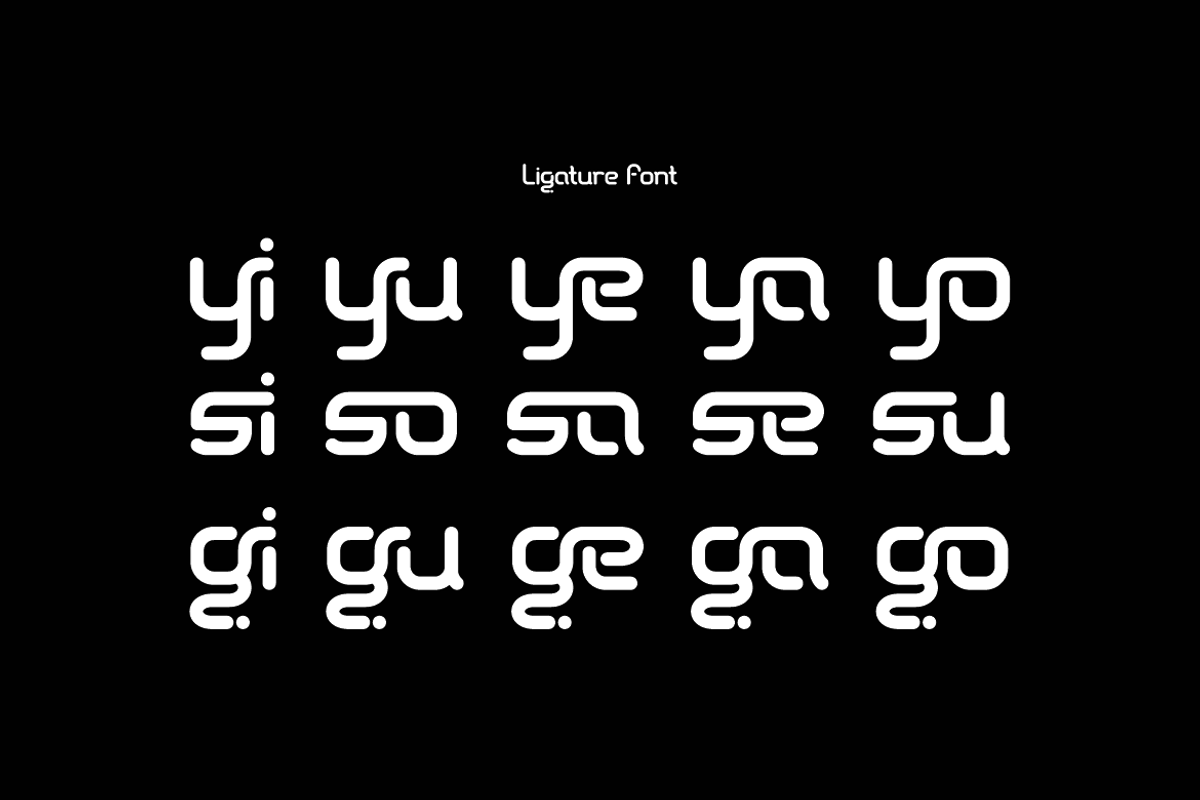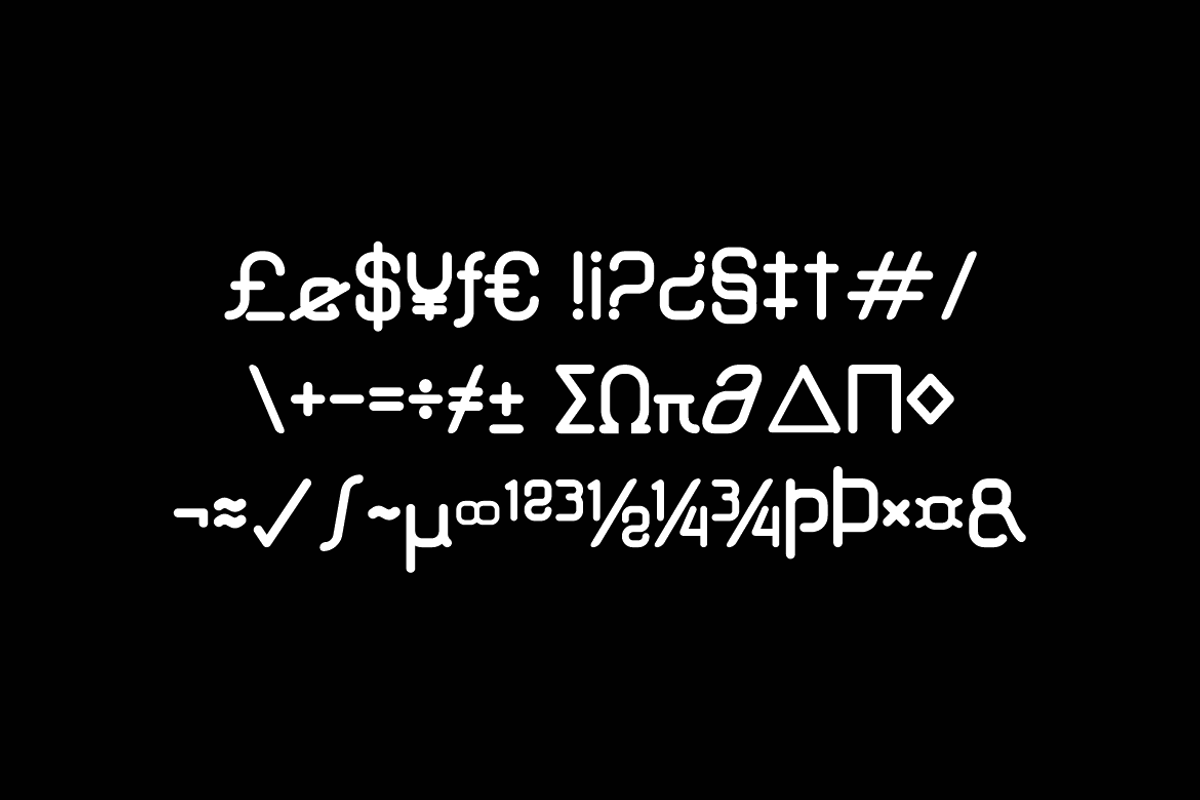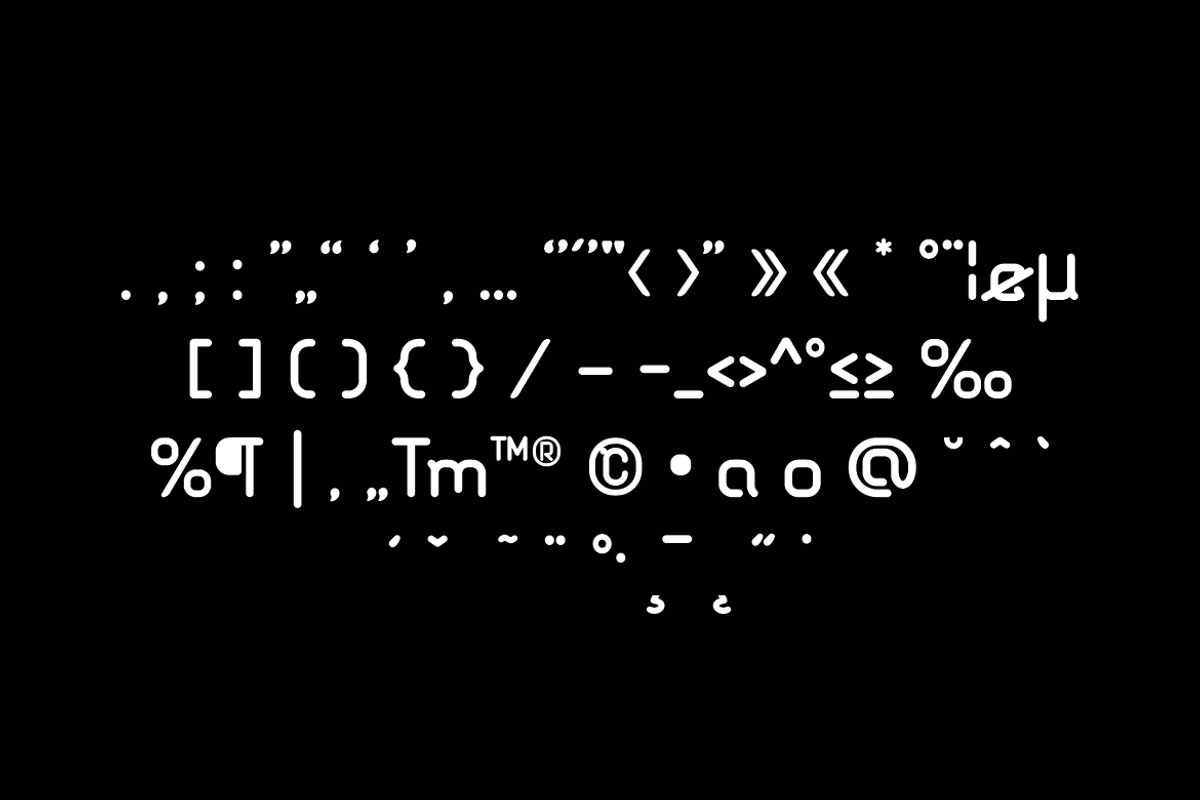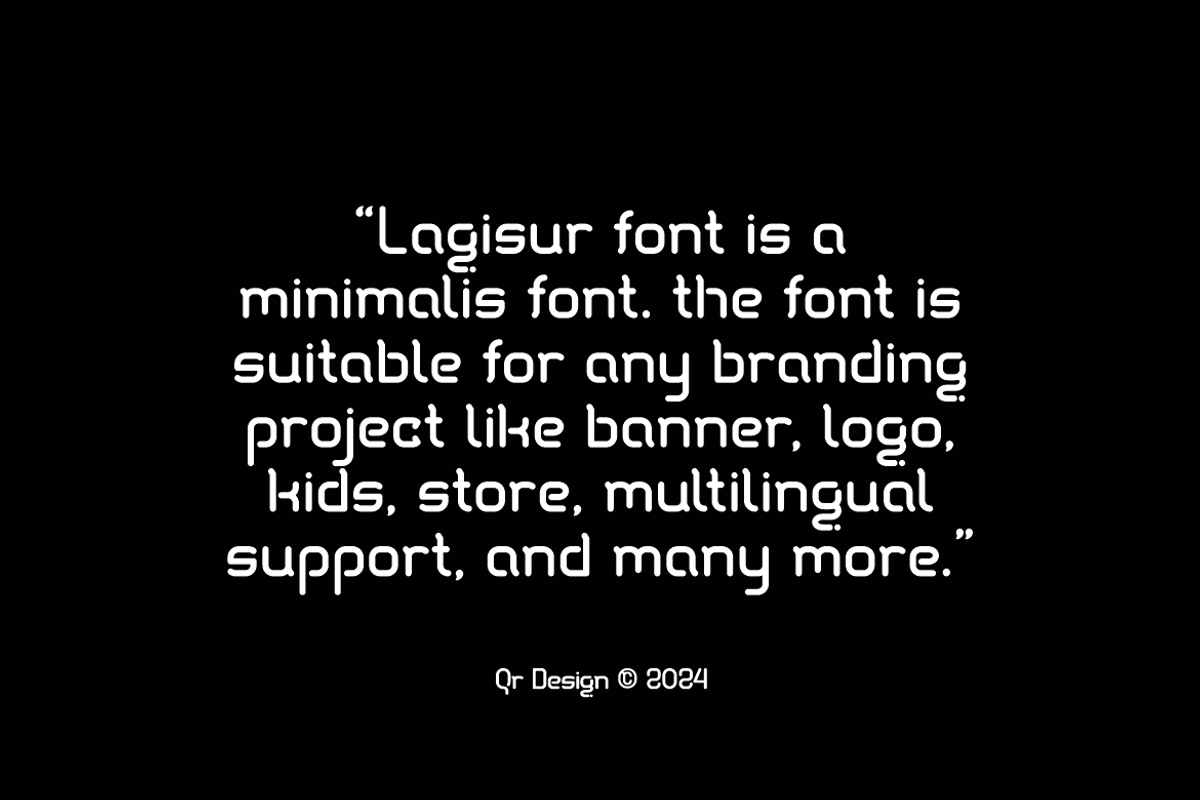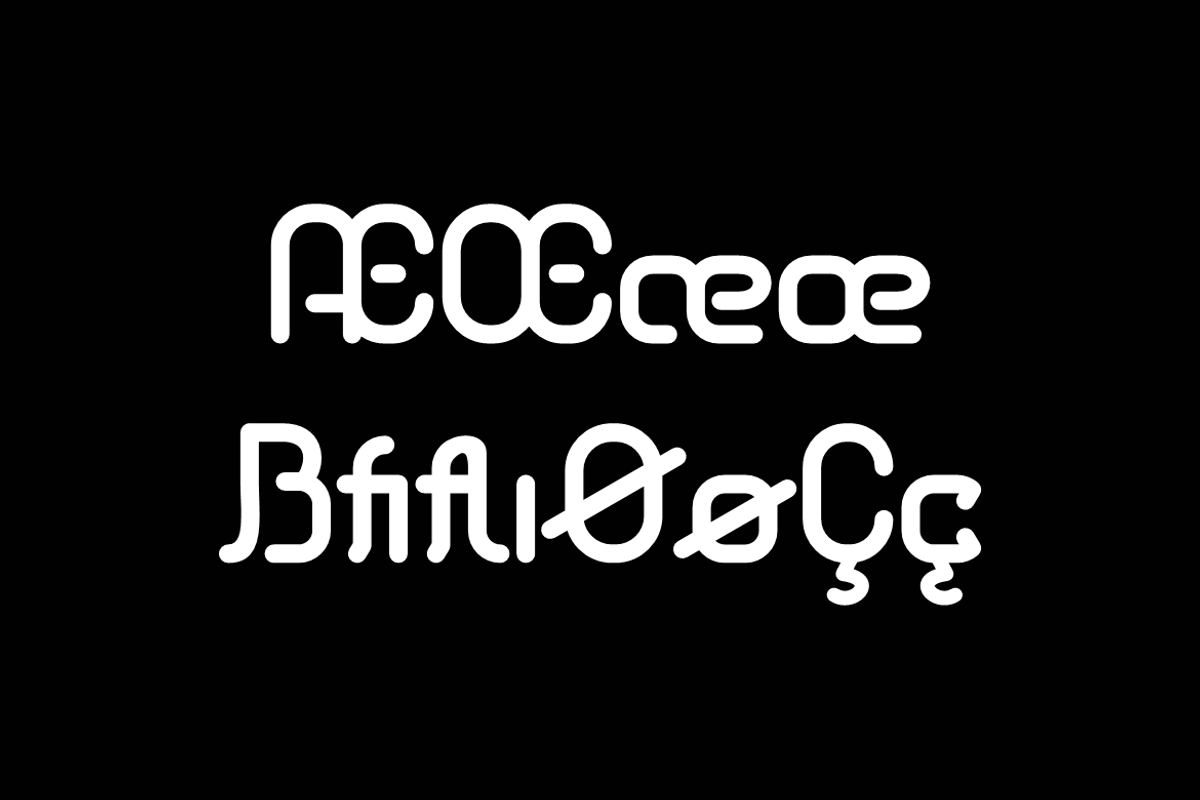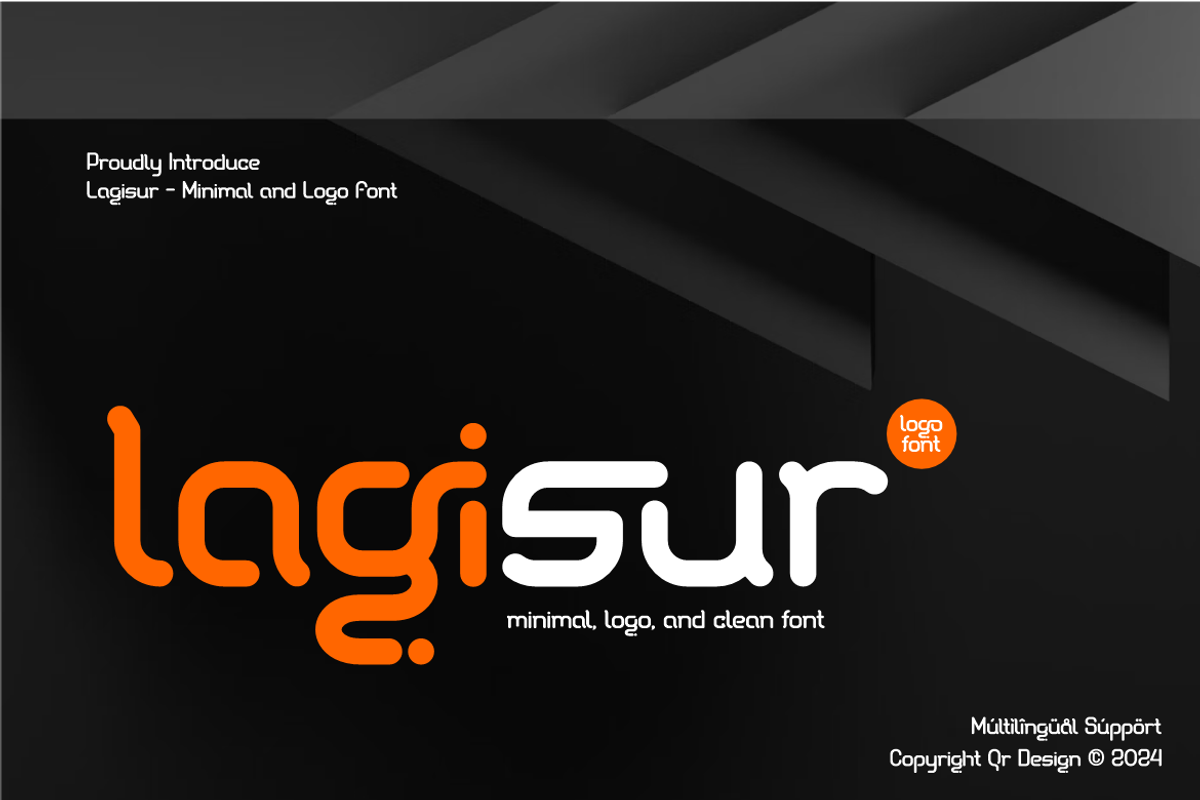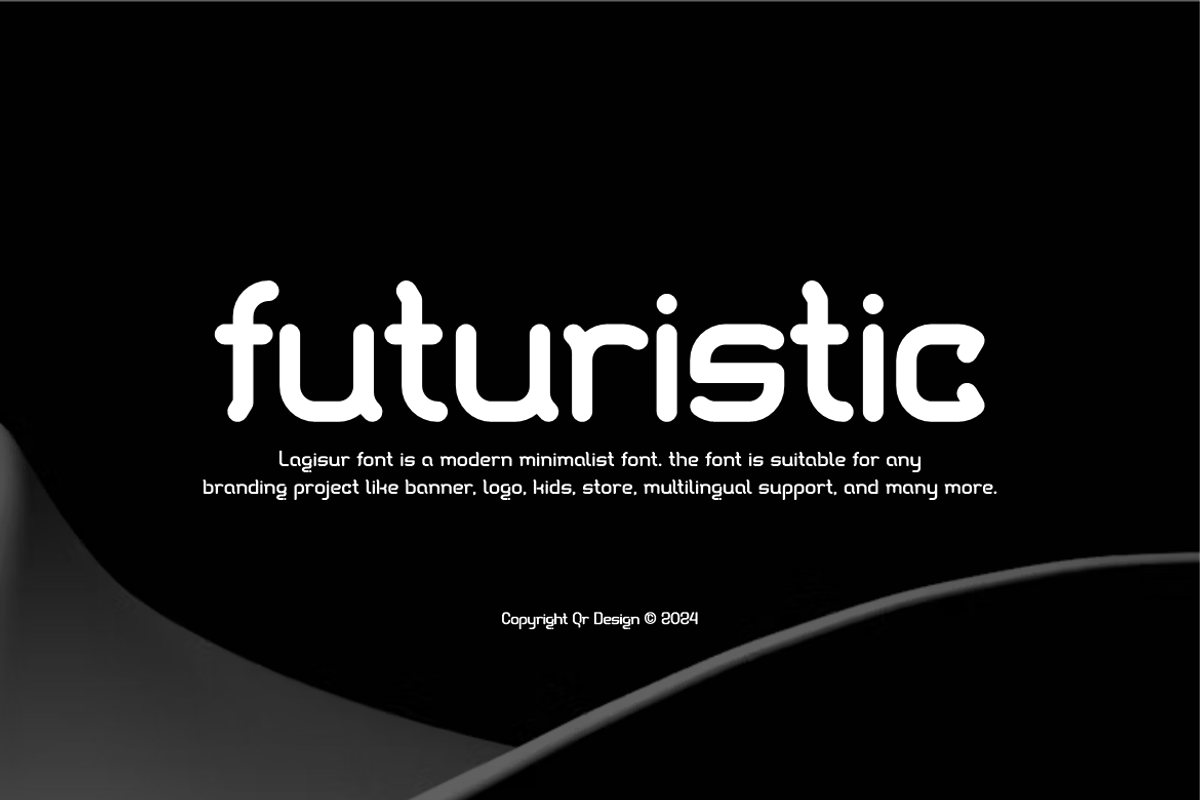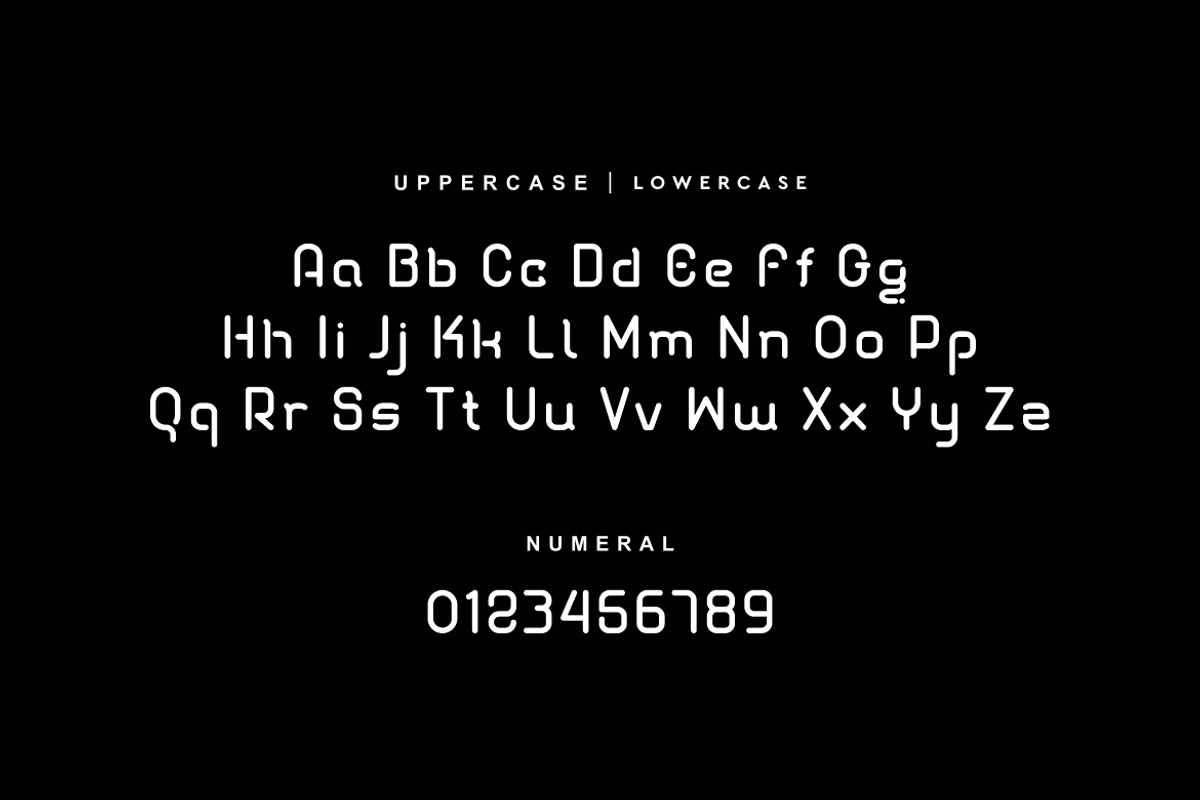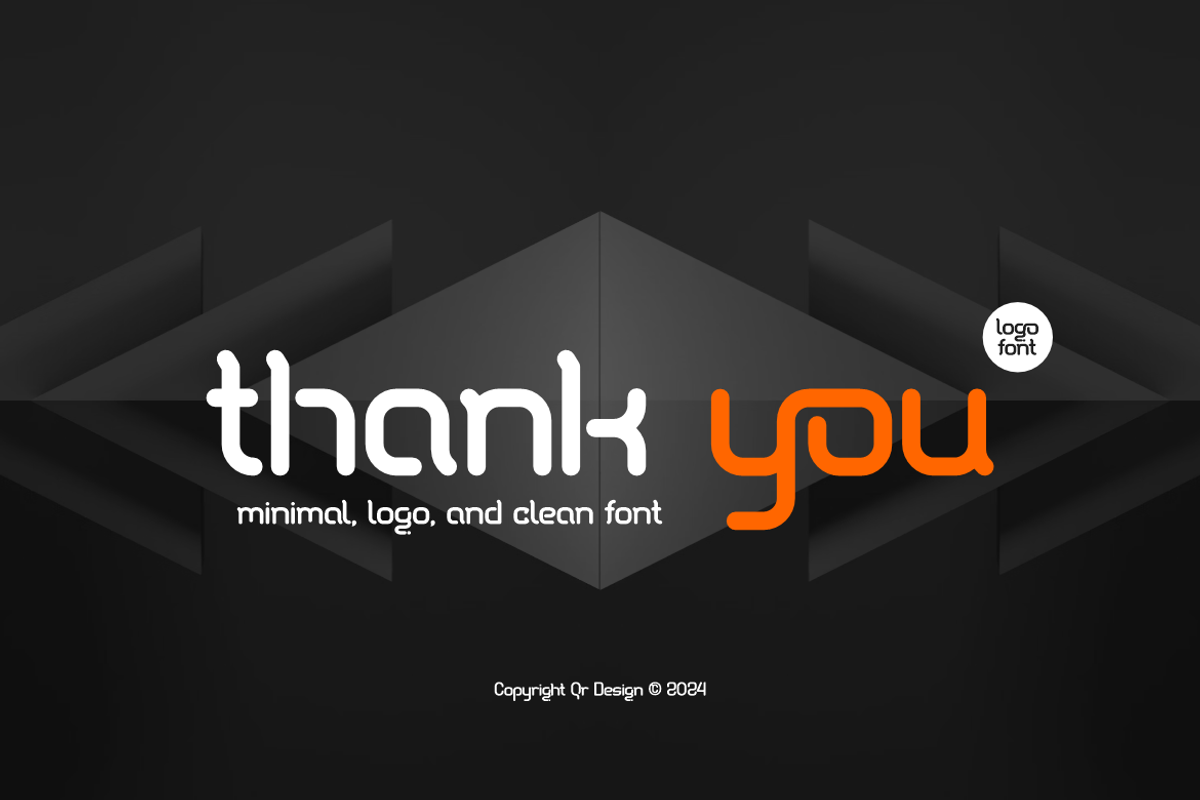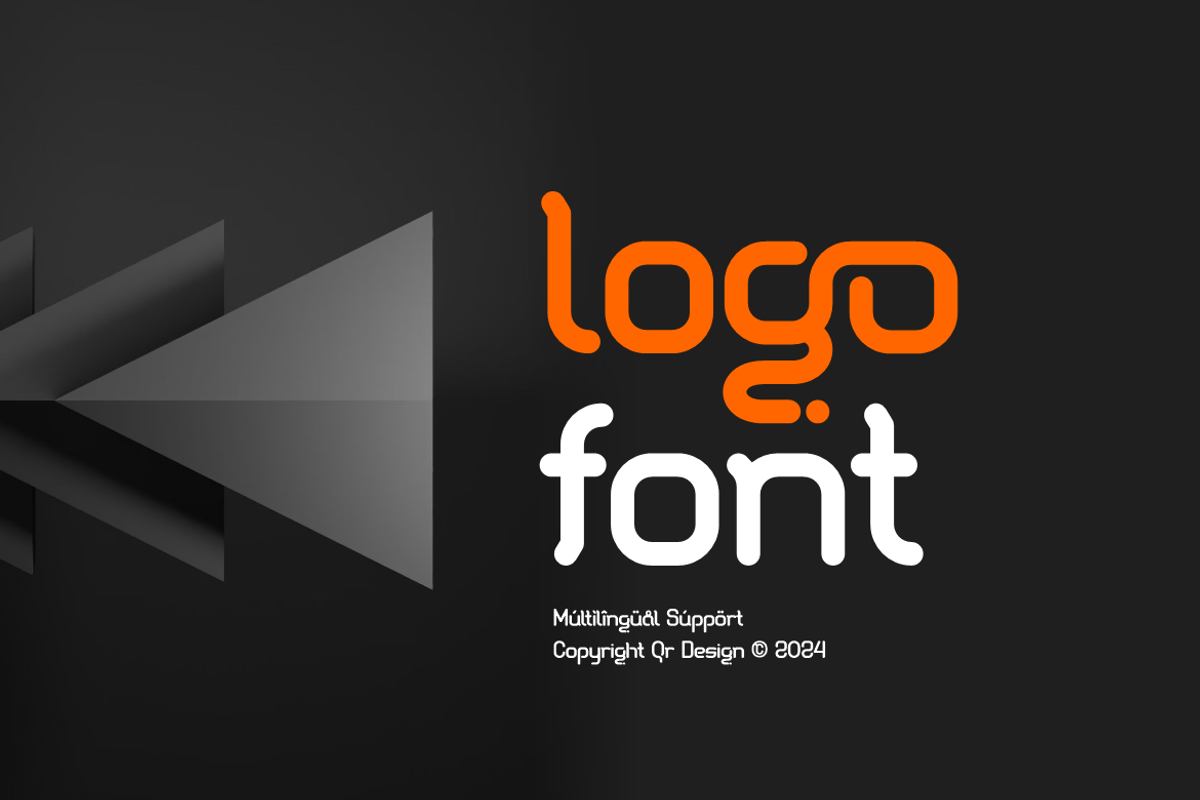
Lagisur - Minimal Logo Font
Lagisur Font is a sans serif and minimal logo font. The font is suitable for any branding project like stylish, poster, logo, sport, and many more. Outstanding in a wide range of contexts.
Main Features
- Ligatures & Alternate
- Numeral & Punctuations
- Extended Character Set